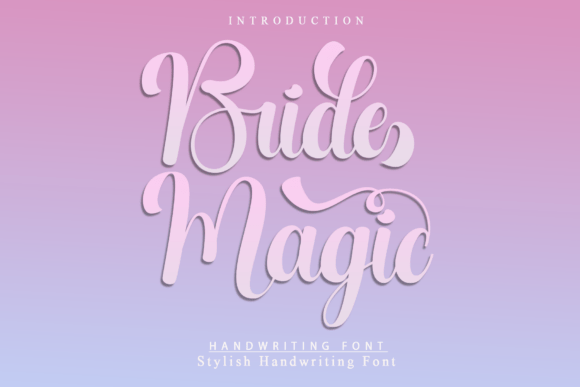
The Magic of Bride Magic Font: A Designer’s New Best Friend
I still remember the last time I was working on a wedding invitation project, struggling to find the perfect font that would capture the warmth and elegance of the occasion. My client was adamant about having a casual, handwritten feel, but I was running out of options. That’s when I stumbled upon Bride Magic Font, and it was love at first sight! ✨ In this article, I’ll share my experience with this beautiful font, its features, and how you can make the most of it in your designs.
An Honest Review of Bride Magic Font
- ✨ Smooth strokes and relaxed curves that give it a natural, effortless look
- ✅ Perfectly balanced letterforms that ensure readability and charm
- 🎉 Versatile character that works well for quotes, branding, packaging, and social media posts
- 👍 Friendly and approachable style that adds a personal touch to any design
While Bride Magic Font is an excellent choice, there are a few things to keep in mind: 🤔
- ⚠️ Limited availability of stylistic alternates, which might limit your design options
- ⚠️ Not ideal for body text or long paragraphs, as it’s best suited for headings and titles
A Practical Guide to Using Bride Magic Font
The Story Behind Bride Magic Font
Bride Magic Font was designed with the intention of capturing the warmth and authenticity of everyday handwriting. The designer aimed to create a font that would be both clean and approachable, making it perfect for a wide range of design projects. 💫
Q: What is Bride Magic Font best suited for?
A: Bride Magic Font is ideal for quotes, branding, packaging, and social media posts, where a personal and friendly touch is desired.